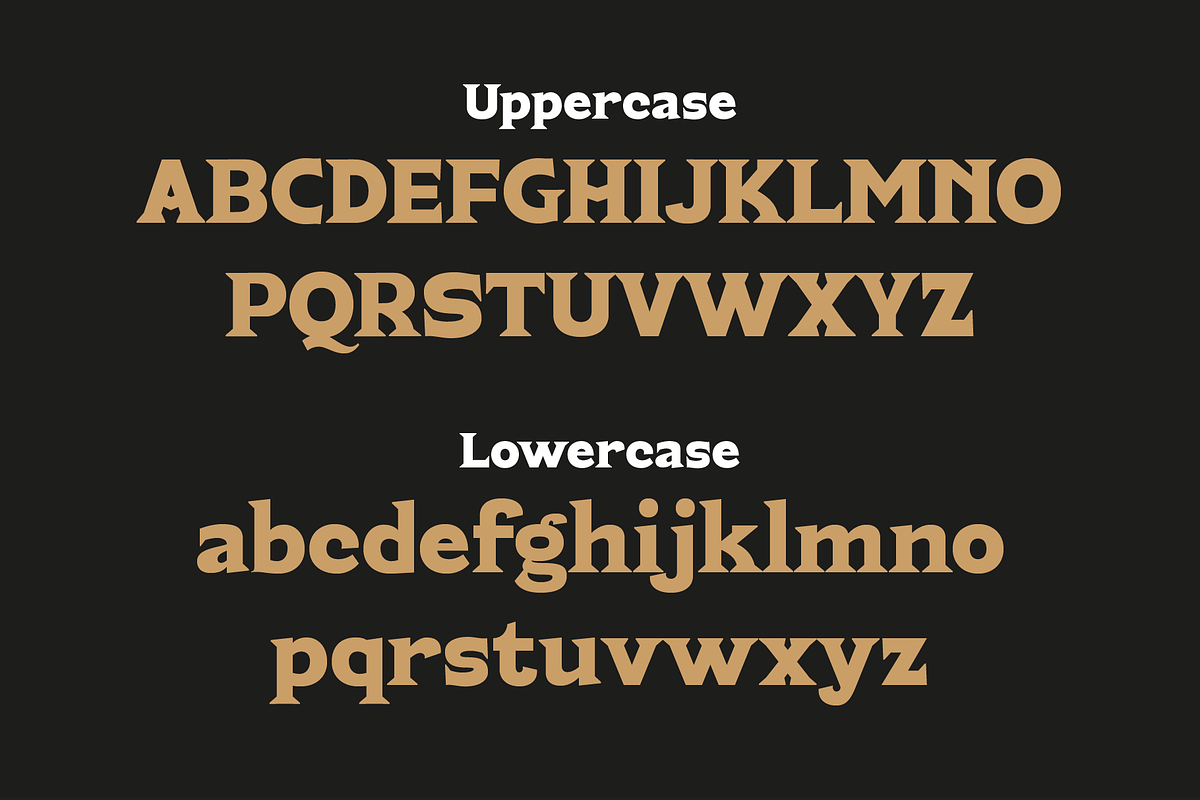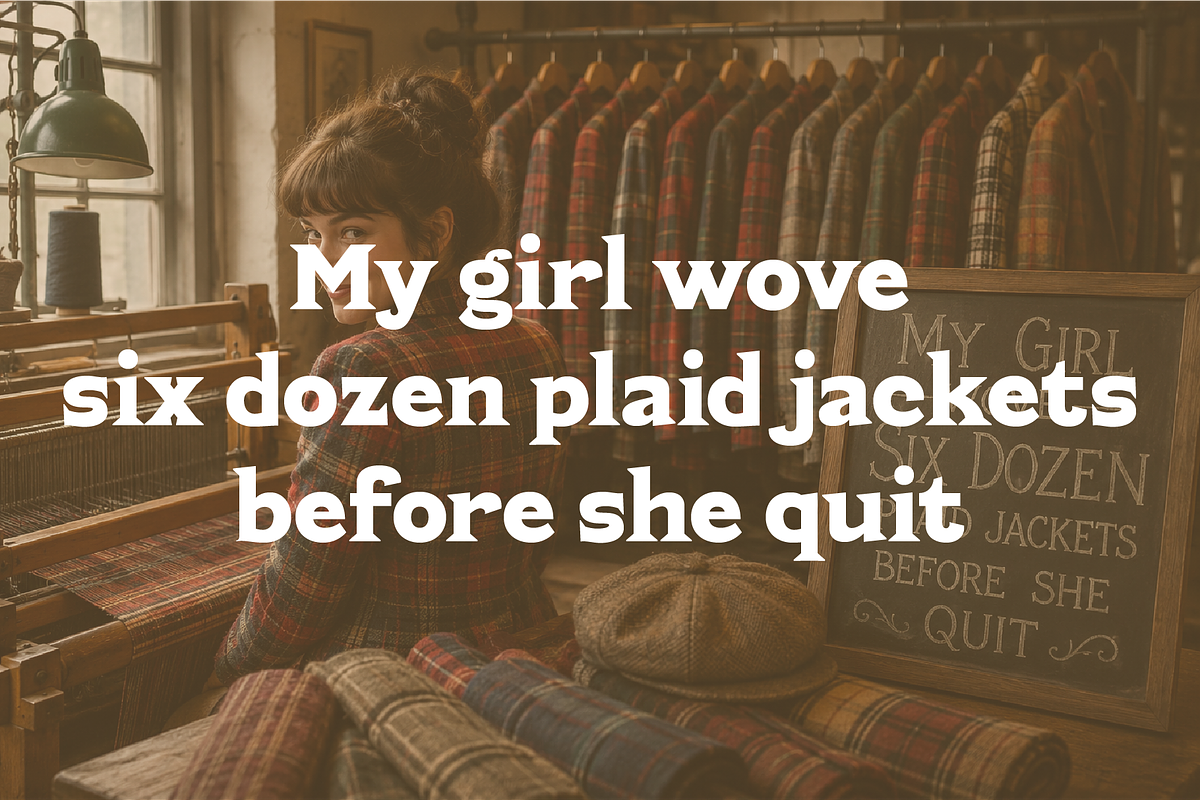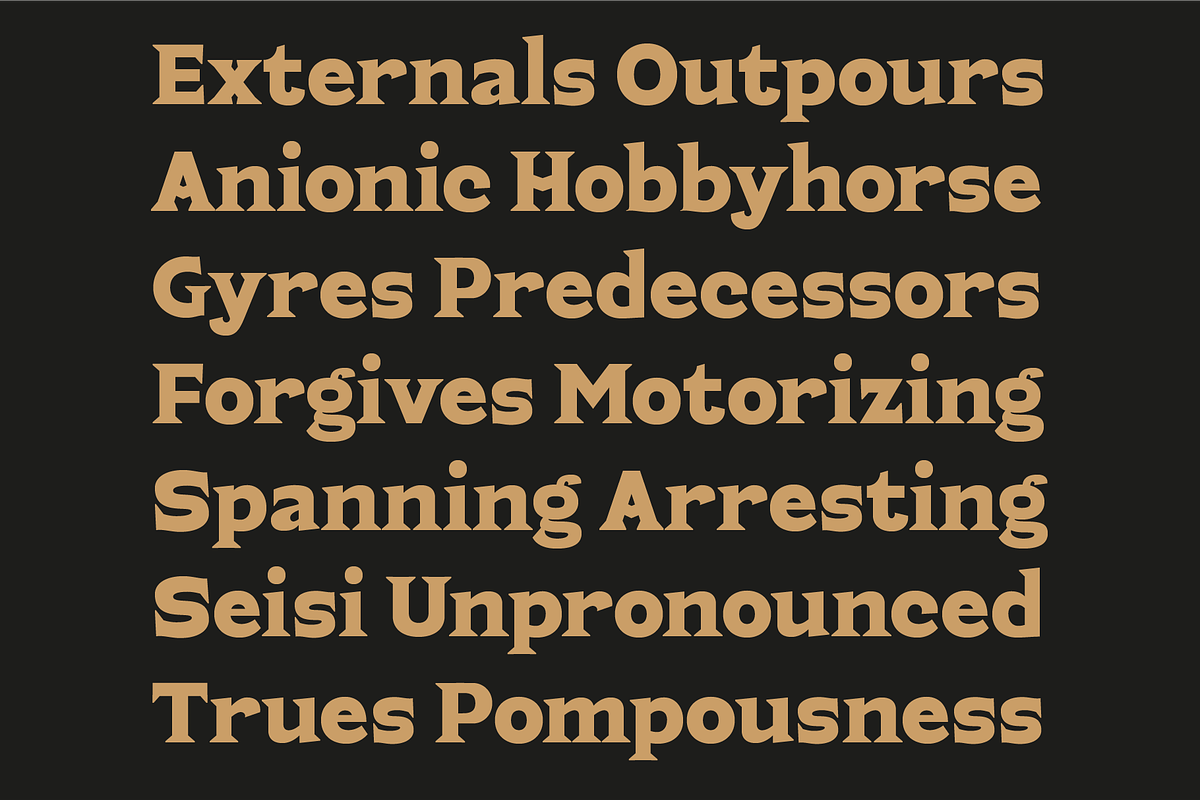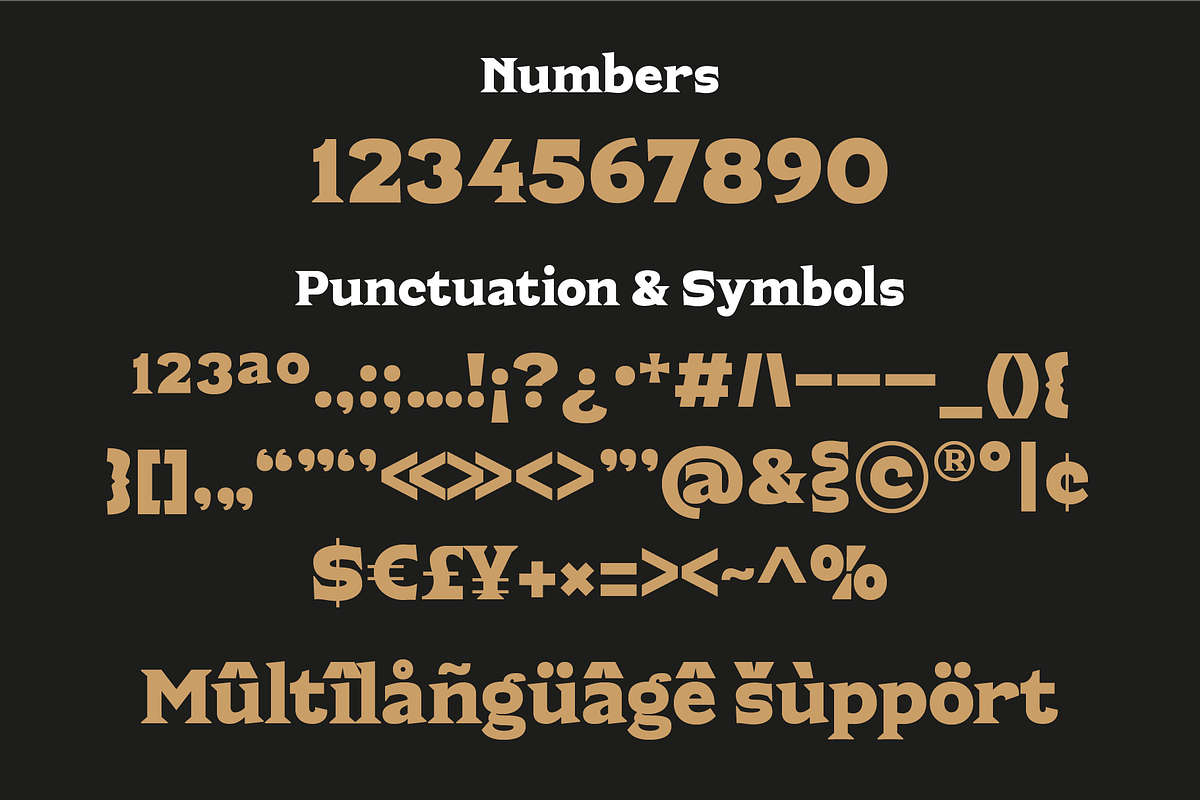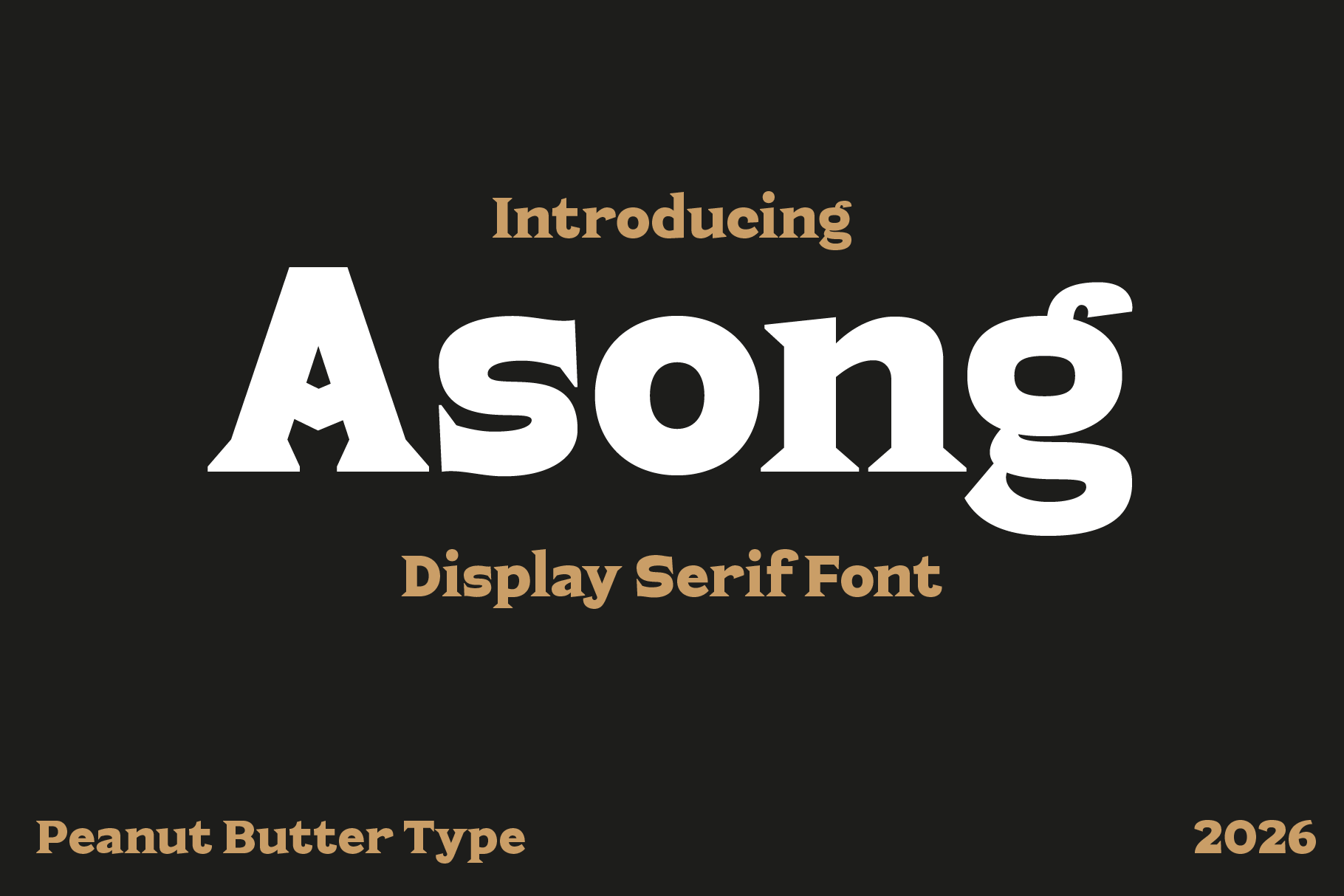
Asong Display Serif Font
Asong is a distinctive display serif font that blends classic elegance with bold character. Its refined serif details, strong letterforms, and decorative touch make it ideal for headlines, logos, branding, packaging, posters, and editorial designs. Designed to capture attention while maintaining readability, Asong brings a sophisticated and timeless aesthetic to any creative project. Whether used in modern luxury branding or vintage-inspired layouts, Asong delivers a memorable visual impact with style and personality.